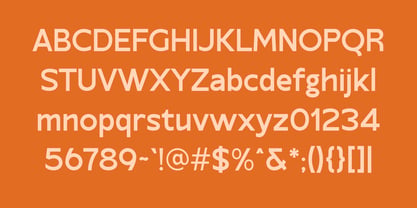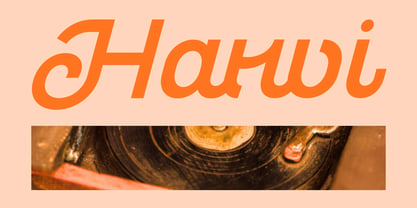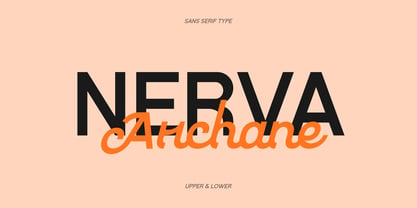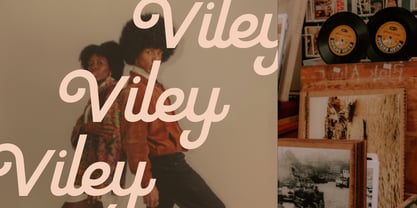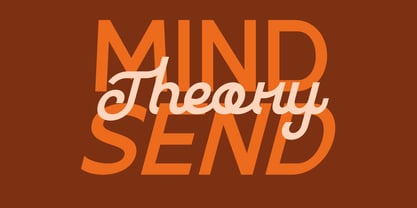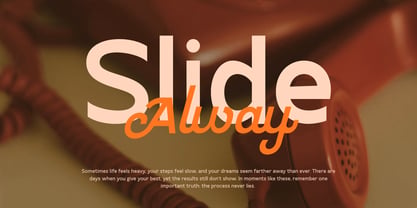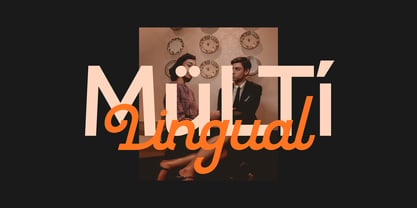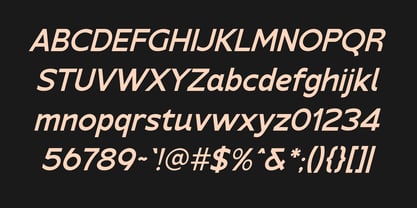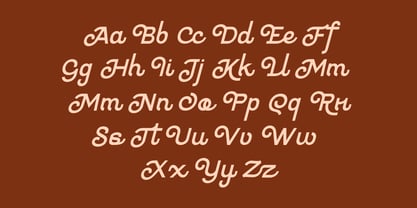
Nerva Archane
por Maikohatta
La familia tipográfica Nerva Archane fue diseñada por Gilang Ternadho y publicada por Maikohatta. Nerva Archane contiene 3 estilos y opciones de paquete familiar. Más información sobre esta familia
Introducing our new product Nerva – Modern Mixed Style Typeface Nerva is a modern mixed style typeface that combines bold, italic, and script sans serif styles into one versatile font family. Designed to create a strong visual impact, Nerva is ideal for projects that require clarity and character in a single typographic system. With clean, geometric shapes in the sans serif, dynamic italic shapes, and expressive script accents, Nerva offers flexibility for branding, logos, headlines, posters, packaging, social media, and editorial design. The combination of styles allows designers to easily establish contrast, hierarchy, and personality. Nerva supports both uppercase and lowercase letters, making it suitable for display typography and short text use. Its modern and contemporary feel makes it ideal for creative, lifestyle, fashion, and business-oriented projects.
Diseñadores: Gilang Ternadho
Fundición: Maikohatta